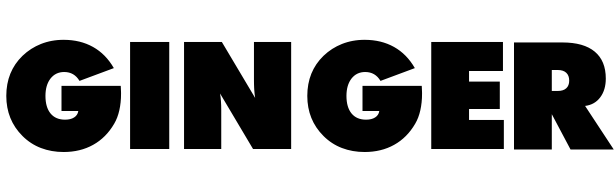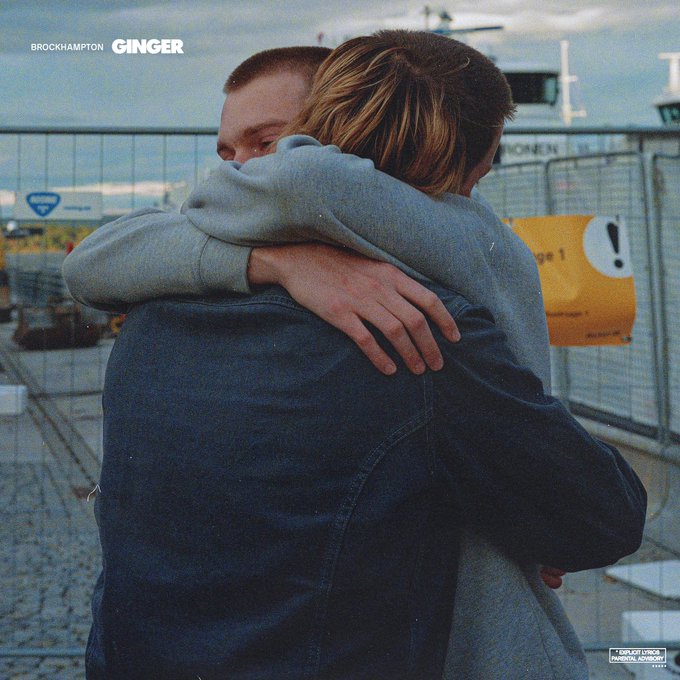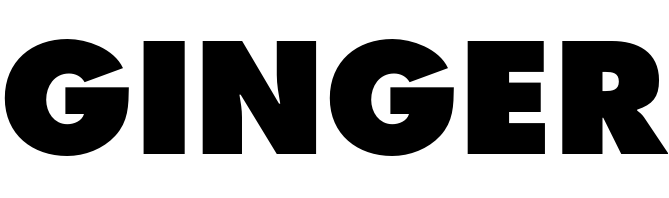
Ginger (Brockhampton) Font
Fonts in UseGinger is the fifth studio album by American boyband Brockhampton, released in 2019. The album explores themes of loss, betrayal, and heartbreak through a blend of rap, R&B, and pop music.
The front cover of the album features the name in all caps, using the Futura Extra Bold typeface with a tight kerning. This typeface is also used for the track list on the back cover and the promotional singles. For those seeking a similar style, the closest available free font is Raiders. You can easily download this font for free from the Fonts Used Section.